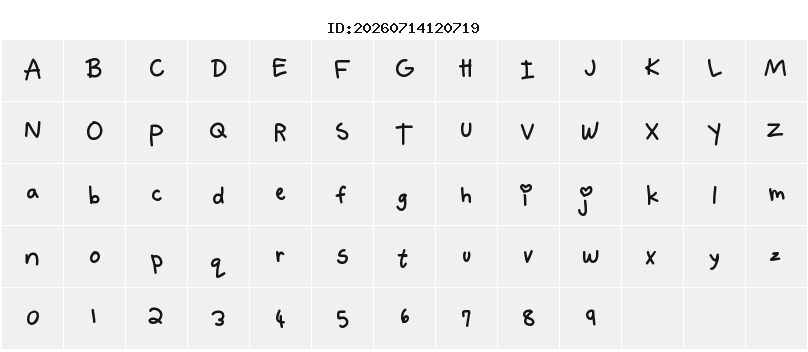
• Font Name: Hearts
• Full Font Name: Hearts
• Designer: Dan P. Lyons
About Hearts.ttf
Hearts.ttf is a modern, elegant sans-serif font designed for ultimate readability and visual harmony. Perfect for branding, headlines, web design, and print materials.